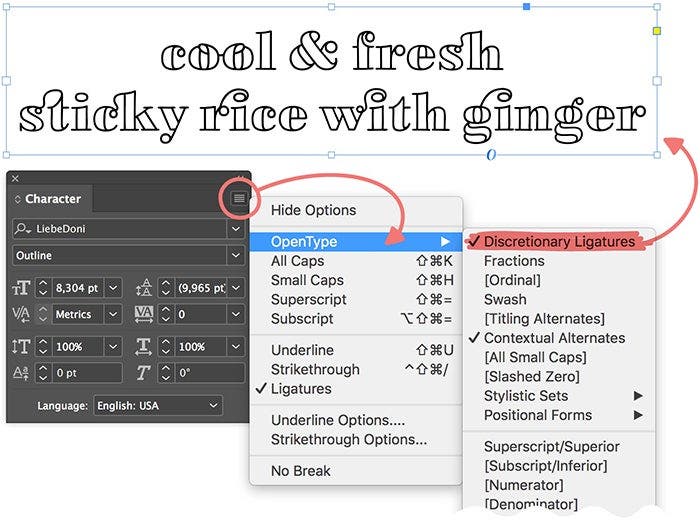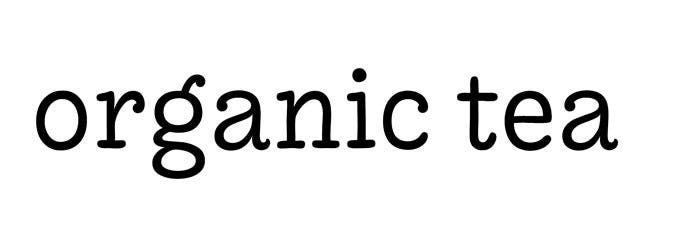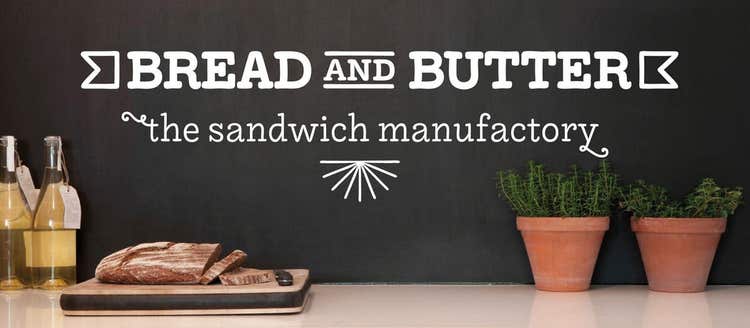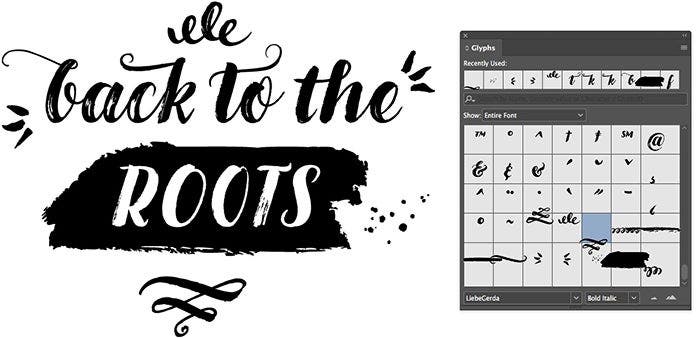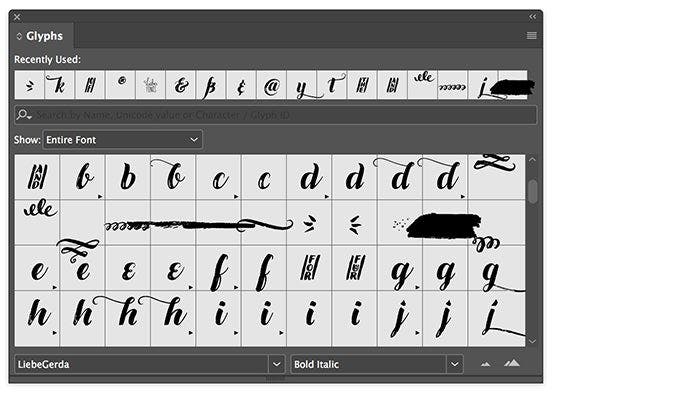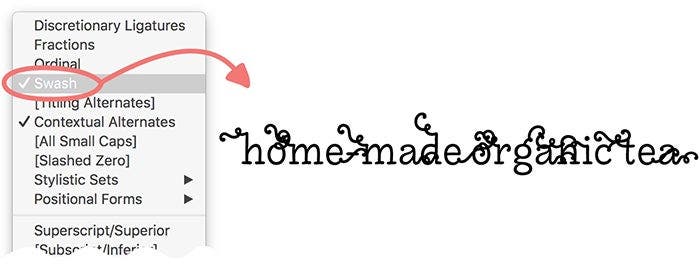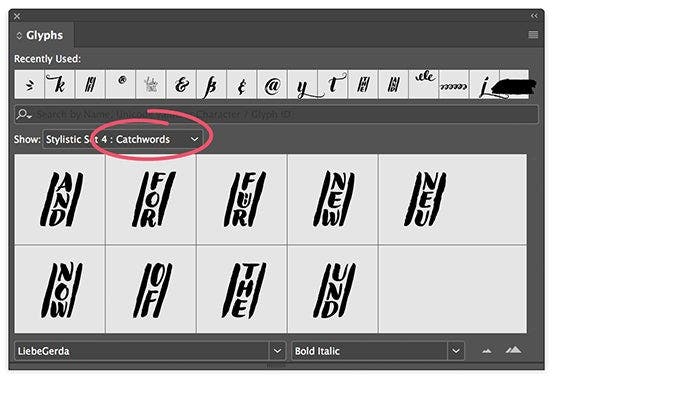
Using OpenType features to add character and flair to your design.
Sometimes a letter catches your eye because of something unique about it — like the way the “y” in “manufactory” curls up whimsically here. How do you get the letters to look like that?
That curl in the “y”(and the twist on the “t”) is called a swash. It’s just one of the dozens of OpenType features that type designers intentionally build into their fonts, sometimes for wider range of expression and sometimes just for fun. When you use them, the result is eye catching, and since it’s so easy to personalize it’s a great way to distinguish yourself — not just as a sandwich shop sign maker, but as a designer.
But it’s not like there’s a “swashy y” key on your keyboard next to the ÿ option. Fortunately, many design applications have controls for OpenType features. Personally, I often use Adobe InDesign for typographic layouts — so in this article I’ll walk through how to find and use OpenType features there.
Getting to know OpenType in InDesign
OpenType features are simple replacement mechanisms that substitute a standard letter with an alternative form. This is what transforms the standard “y” into its curly swash version in the typeface I’ve shown in the first image, which happens to be my own LiebeRuth.
InDesign’s Character panel is where you might choose your font and set the size for your text, and also happens to be where the OpenType feature controls live.
Choosing the Options toggle in the upper right of the Character Panel interface pops open a sub-menu where the OpenType features can be found. Features shown with [square brackets] are not applicable for this typeface (LiebeDoni) but may be for others.
In this submenu you will see a list of possible decorations that you can apply to your text. Note how the “st” and “ck” in “sticky” are artfully looped together? That’s because I’ve activated Discretionary Ligatures in this menu.
Contextual alternates and ligatures, both checked in this example, are usually on by default. Type designers build these into their fonts to keep adjacent letters in good balance with one another, and to avoid collisions between letters that naturally overlap. The discretionary ligatures and other decorative options that we’re playing with here are more ornamental and less functional by comparison.
If you select your entire text frame and activate a certain feature (for example, Swash), it will be applied to all of the text in that frame. Depending on how much the designer has built into their typeface, you might notice very little… or all hell could break loose.
Select the “Swash” option from the OpenType menu, and transform your ordinary letters into their wilder selves. A little will go a long way! The font shown here is LiebeRuth.
This can get out of control if a font offers a multitude of decorations. So I would advise only applying decorative features to one or two letters at a time until you’ve reached just the right level of flair.
Select just one letter, and a hover menu will display a mini preview of any alternative versions available to activate. Swap between them until you find the one you like best.
Common words like “the,” “and,” and “for” are sometimes drawn into neat arrangements called catchwords. Try selecting a whole word to see a hover menu with available character alternates and combinations.
Not all fonts will have catchwords. They are more common for decorative or script fonts like LiebeGerda shown here.
See more at once with the glyphs panel
If you’re working with a font for the first time and you aren’t sure what kinds of special character options might be included, there’s a good way to get a big-picture view of that. From the top menu bar in InDesign, head to Type → Glyphs, and pop open the Glyphs panel.
Many of the characters may be too small to see clearly here, but you can tap to select individual letters through the Glyphs panel, and they will insert directly into a text frame.
In this example, I placed the black brushstroke directly from the glyphs palette in a text frame, then placed the word “ROOTS” in white text in a second text frame on top of it.
This may not be a reasonable way to closely browse the entire font, especially since some fonts may contain over 1,000 characters. For example, if you don’t need to see every variant of the capital-letter swashes and just want to get to the catchwords, I’d advise making use of the filtering option available in the “Show” drop-down menu.
View only the catchwords, or any other decorative set, by using the drop-down “Show” menu in the Glyphs panel. Catchwords shown are for LiebeGerda.
One font = lots of possibility
I’ve only scratched the surface of OpenType features in these examples, and there’s much more you might find — it’s completely up to the type designer how many extras they decide to draw for a font.